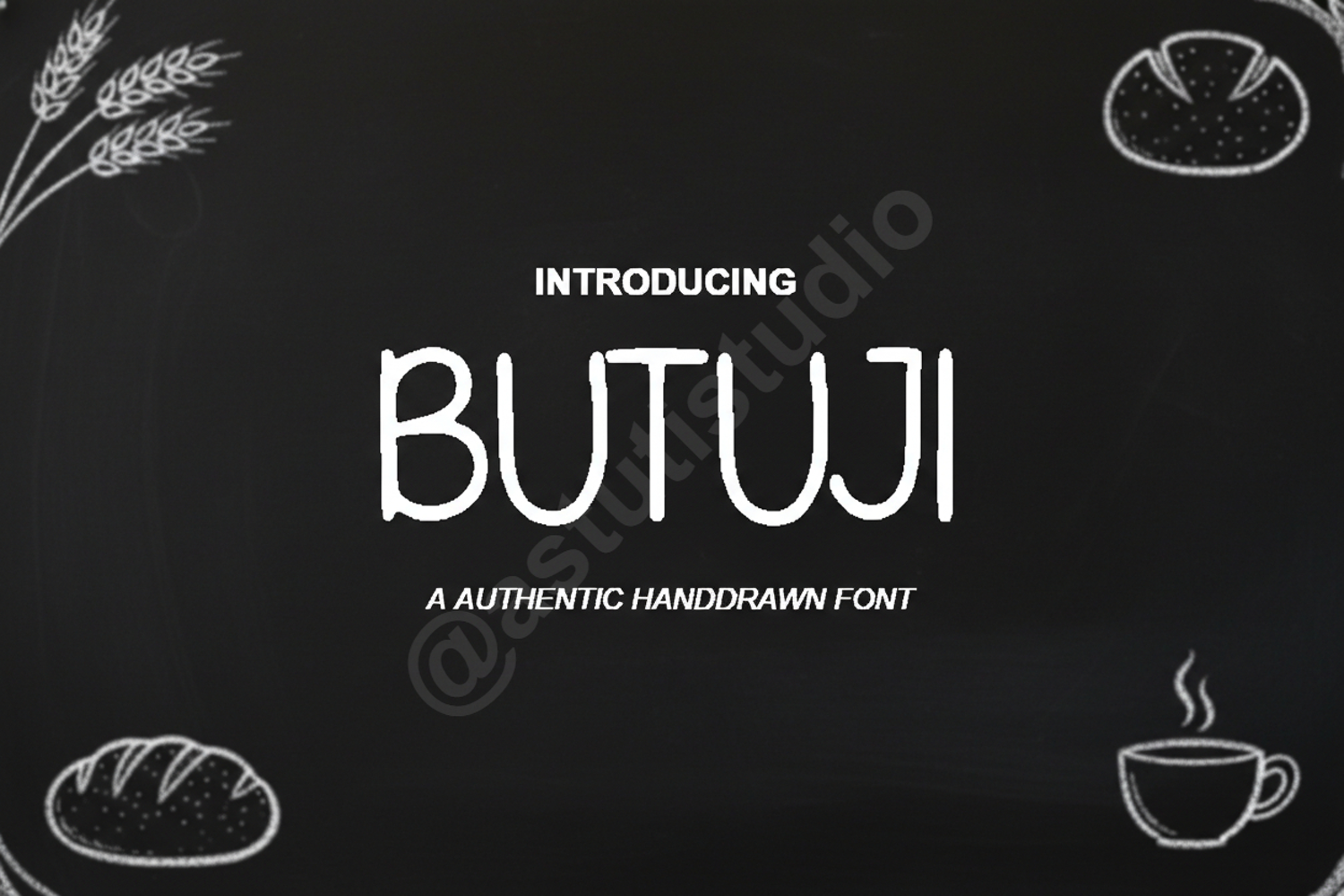
Butuji | Elegant Luxury Serif Typeface
Butuji
INTRODUCTION
Butuji is a sophisticated serif typeface meticulously crafted for high-end visual identities. This font balances classical proportions with contemporary flair, making it an essential tool for premium branding, editorial projects, and high-fashion aesthetics. Its refined silhouette ensures that every word commands attention while maintaining a sense of understated grace.
- Elegant high-contrast letterforms for a premium feel
- Distinctive ligatures and stylistic alternates for custom compositions
- Full multilingual support for global brand applications
- Optimized kerning and spacing for professional-grade typesetting
- Perfectly suited for luxury logos, magazine layouts, and social media storytelling
- Complete uppercase and lowercase character set
- Comprehensive suite of numerals, symbols, and punctuation
- Professional ligature collection for fluid text flow